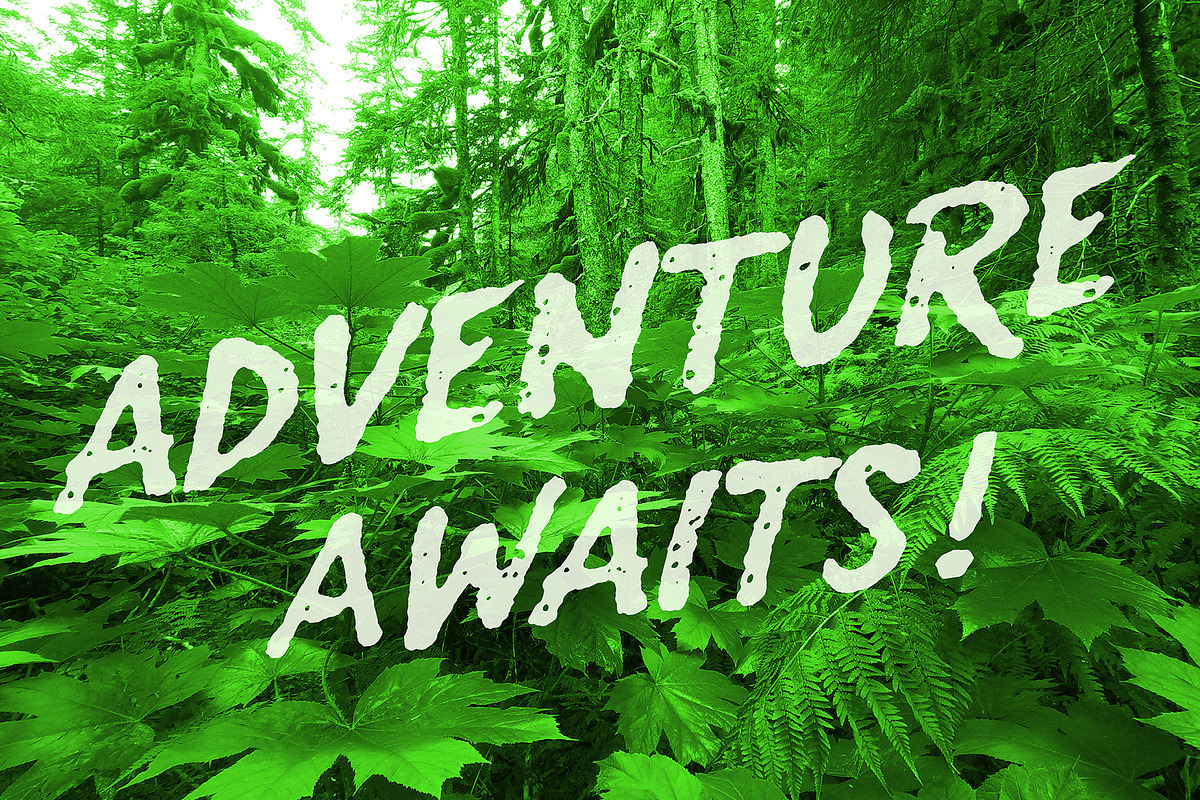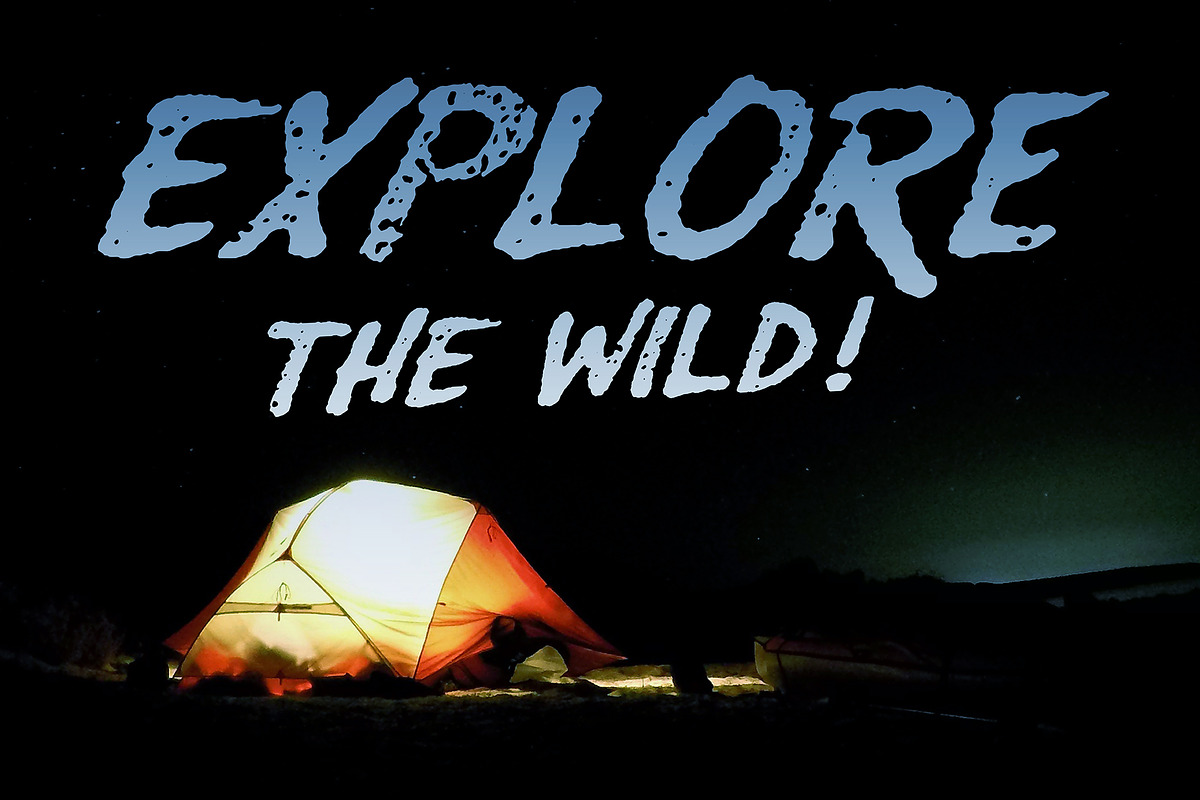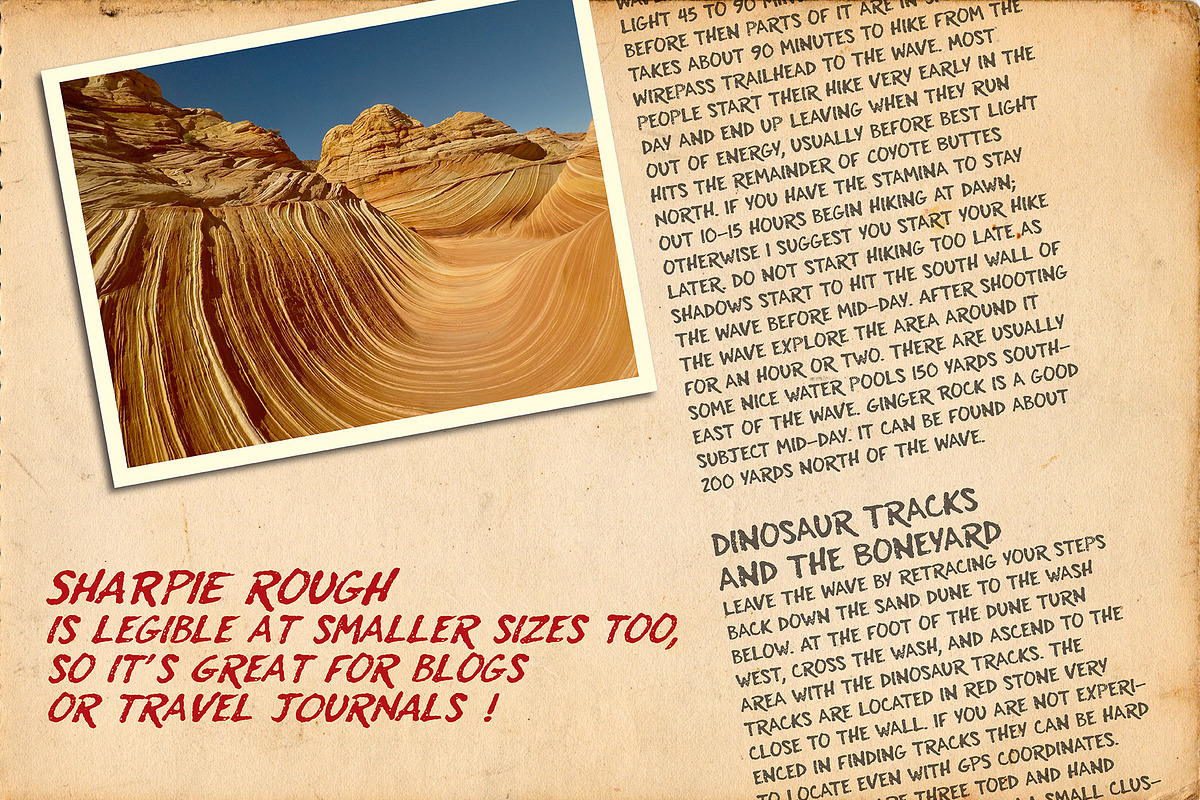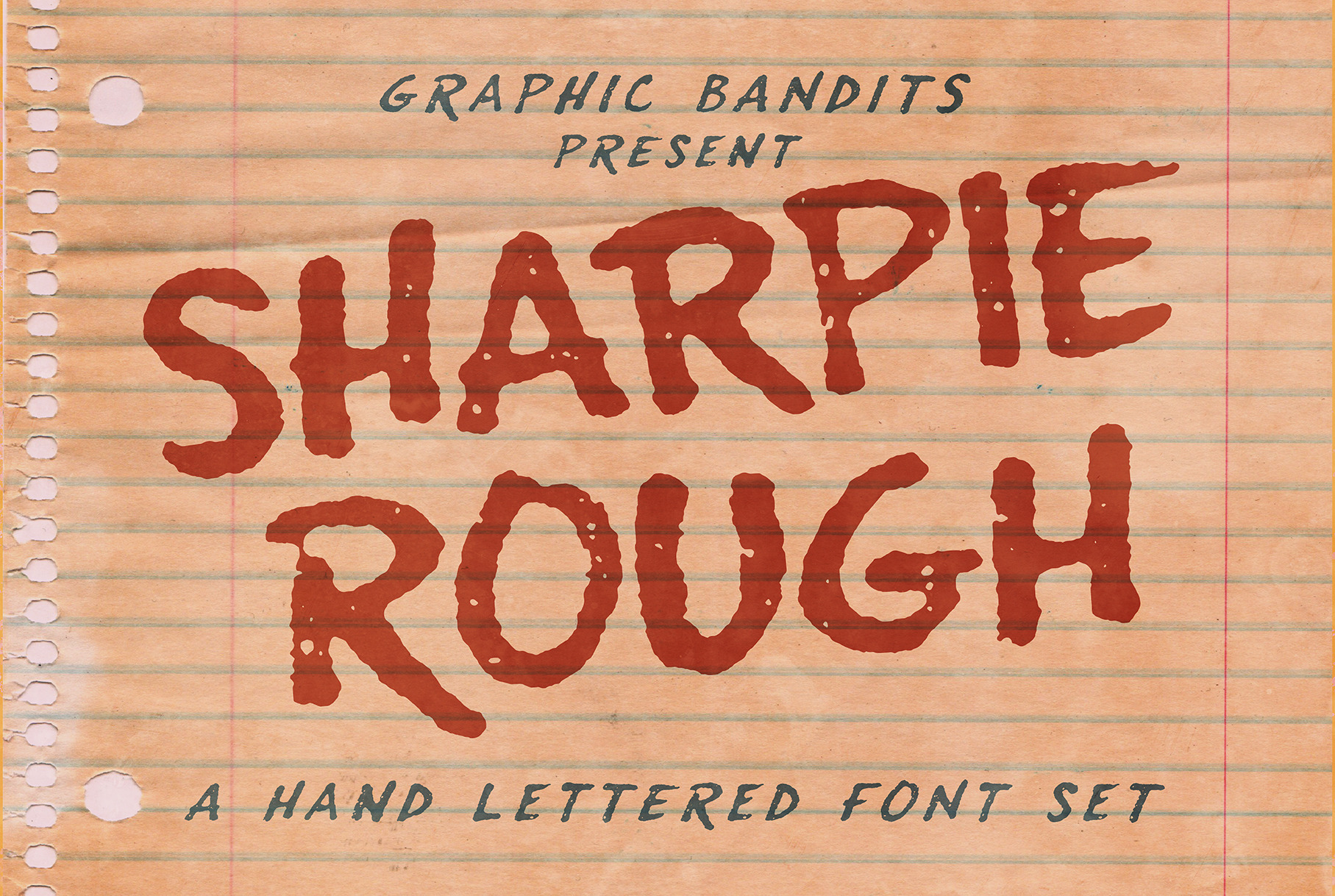
Sharpie Rough typeface
Introducing Sharpie Rough! A hand lettered typeface that is a real workhorse! This is a very versatile typeface. It can be used in many types of designs. Works great on posters, signage, shirts, websites, even is highly legible at smaller sizes, so is an excellent choice for blogs, craft, travel sites, or any design project that calls for a rough, distressed, hand lettered look!